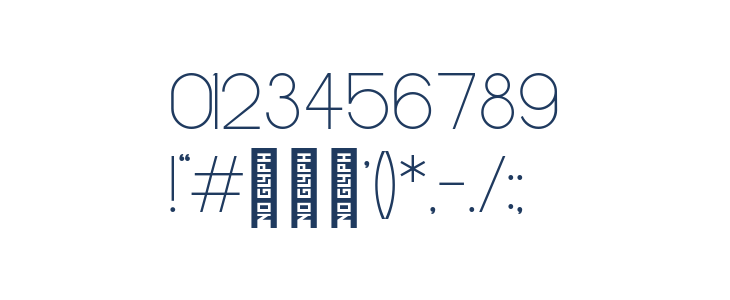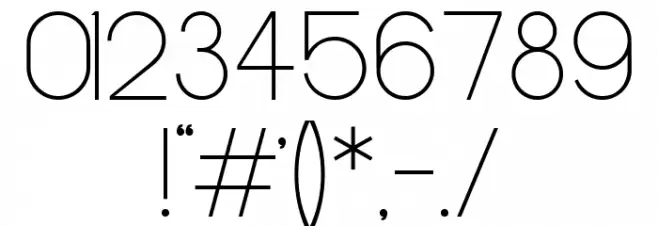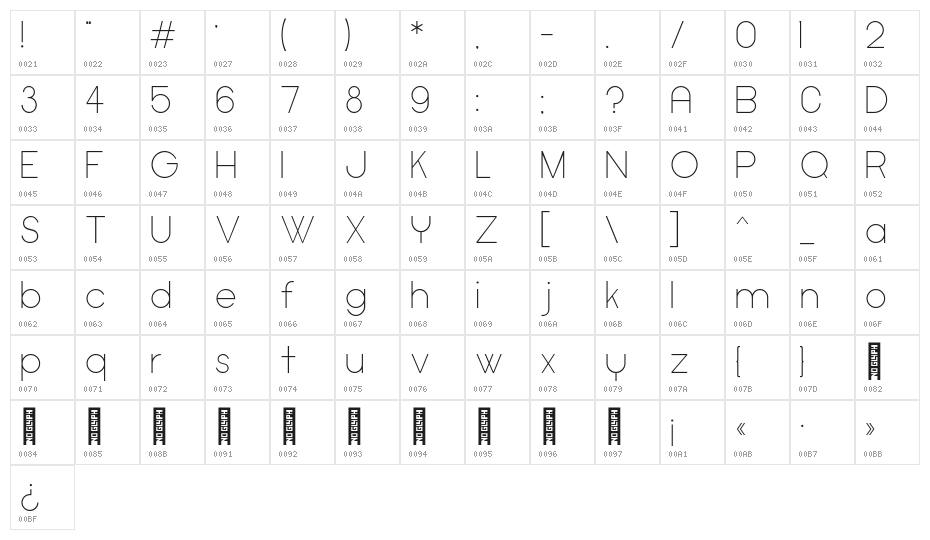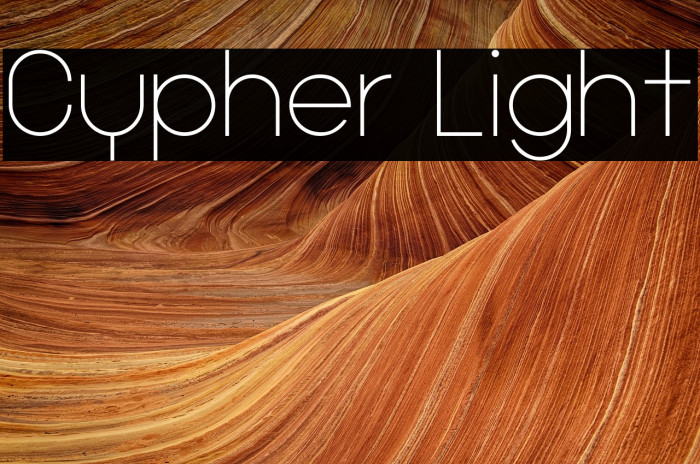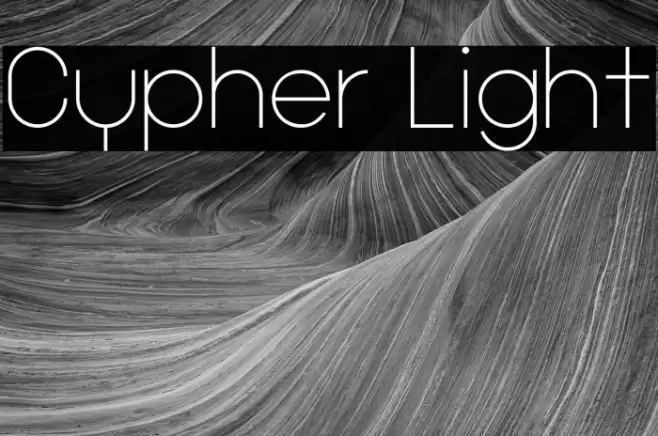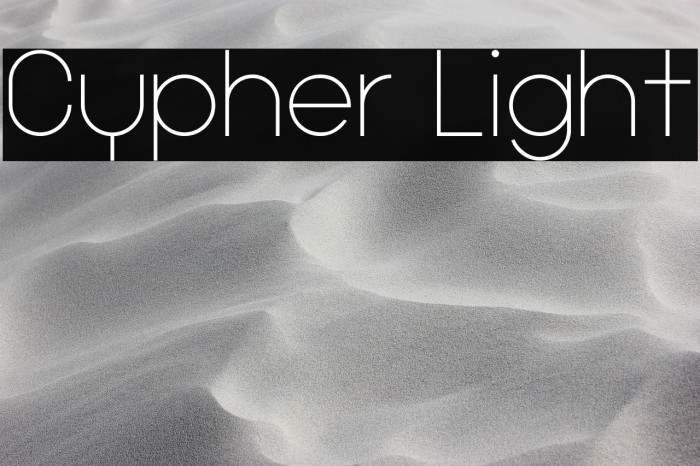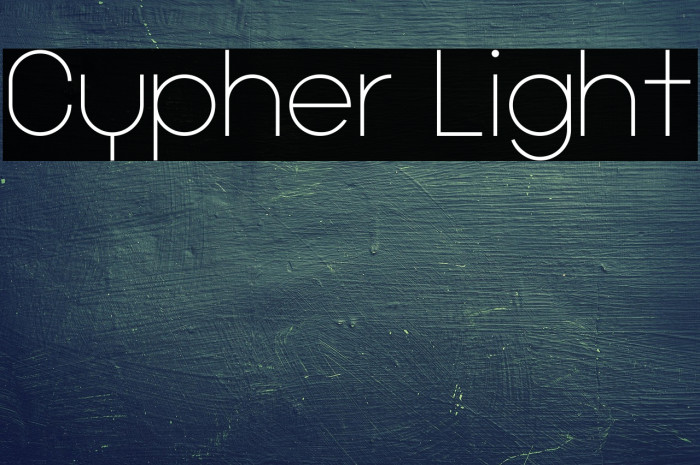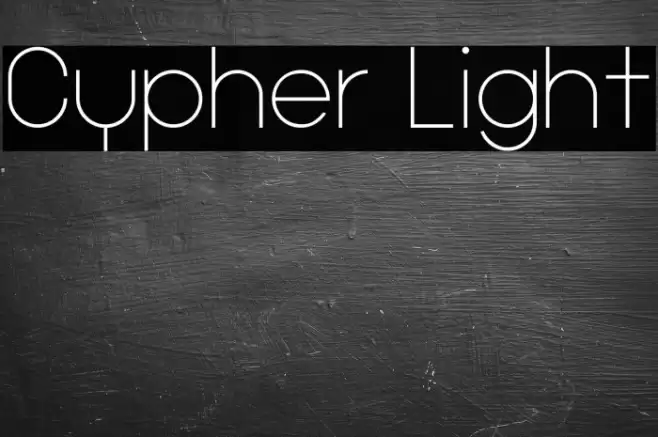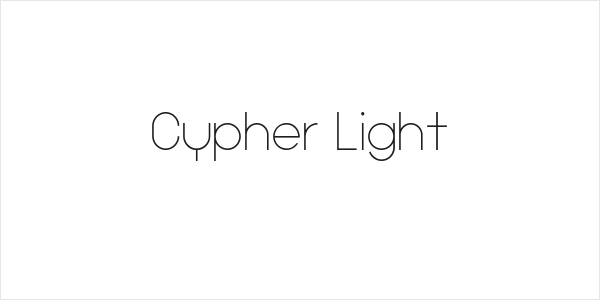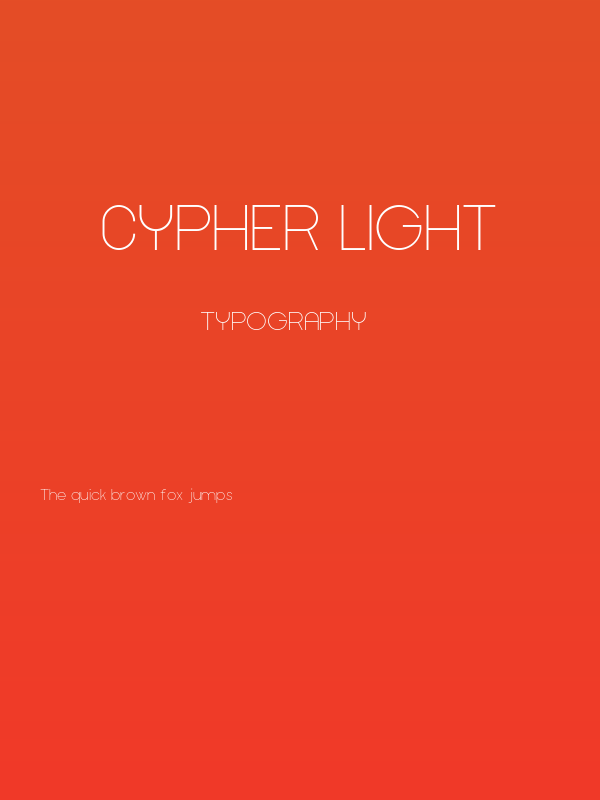
Cypher Light Font
Cypher Light Description
This font features a clean and modern design with geometric shapes and a minimalist aesthetic. The characters are constructed with thin, even strokes, giving it a light and airy feel. The uppercase letters are tall and narrow, while the lowercase letters maintain a consistent height, contributing to a uniform appearance. The numerals are similarly styled, with a sleek and contemporary look. Special characters are designed to complement the overall style, maintaining the font's cohesive and streamlined appearance.